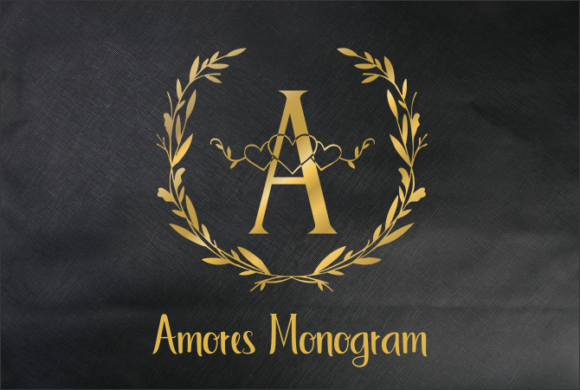
Introducing Amores Monogram Font: The Perfect Addition to Your Romantic Designs
Are you looking for a font that exudes elegance, romance, and sophistication? Look no further than Amores Monogram Font. This beautiful decorative font is perfect for adding a touch of love and luxury to your designs, whether you’re creating wedding invitations, love letters, or simply want to add a romantic flair to your favorite design ideas.
A Pure and Elegant Decorative Font
Amores Monogram Font is a pure and elegant decorative font that is sure to impress. Its intricate details and classic design make it perfect for a variety of design projects, from traditional wedding invitations to modern digital designs. The font’s romantic and lovely appearance is sure to add a touch of whimsy and charm to any design.
Perfect for Love Letters and Wedding Invitations
Amores Monogram Font is particularly well-suited for love letters and wedding invitations. Its elegant and sophisticated design makes it perfect for expressing your love and commitment to someone special. Whether you’re creating a traditional wedding invitation or a romantic love letter, this font is sure to add a touch of luxury and romance.
Add a Romantic Flair to Your Designs
But Amores Monogram Font isn’t just limited to love letters and wedding invitations. You can also use it to add a romantic flair to your favorite design ideas. Whether you’re creating a beautiful scrapbook page, a stunning poster, or a gorgeous digital design, this font is sure to add a touch of elegance and sophistication.
Key Features of Amores Monogram Font
- Pure and elegant design: Amores Monogram Font features a classic and sophisticated design that is sure to impress.
- Romantic and lovely appearance: The font’s romantic and lovely appearance makes it perfect for adding a touch of whimsy and charm to any design.
- Perfect for love letters and wedding invitations: Amores Monogram Font is particularly well-suited for love letters and wedding invitations.
Tips for Using Amores Monogram Font
Here are a few tips for using Amores Monogram Font in your designs:
- Use it sparingly: Amores Monogram Font is a decorative font, so it’s best to use it sparingly to add emphasis and elegance to your designs.
- Pair it with a simple font: Pair Amores Monogram Font with a simple font to create a beautiful contrast and add visual interest to your designs.
- Experiment with different colors: Amores Monogram Font looks beautiful in a variety of colors, so don’t be afraid to experiment and find the perfect color for your design.
Amores Monogram Font is a beautiful and elegant decorative font that is perfect for adding a touch of romance and luxury to your designs. Its pure and elegant design, romantic and lovely appearance, and ease of use make it a must-have for designers and crafters. Whether you’re creating love letters, wedding invitations, or simply want to add a romantic flair to your favorite design ideas, Amores Monogram Font is sure to impress.